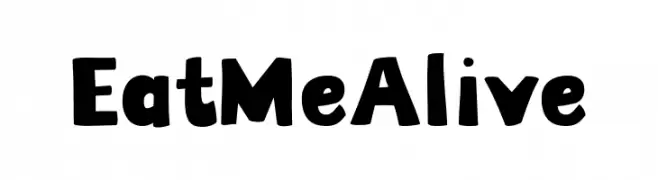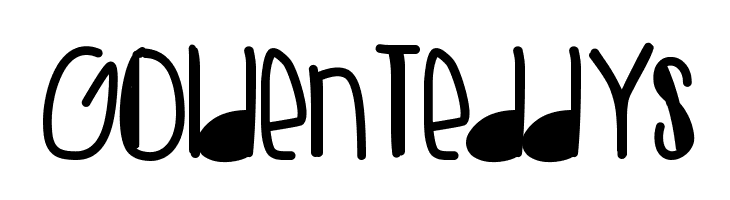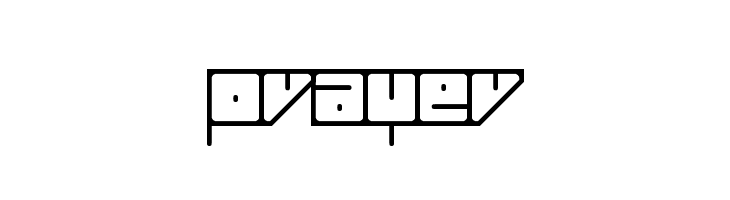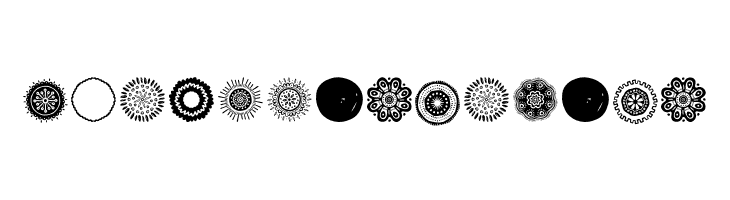
( Fonts by Des Gomez )
A playful, hand-drawn font with bold, rounded characters and whimsical symbols.
( گالری فانت فارسی پژوهش آريانا - only compatible with Farsi and Arabic )
A bold, modern font with uniform stroke width and strong presence.
( Fonts by Blue Vinyl - Jess Latham - www.bvfonts.com )
Eclectic hand-drawn dingbat font with playful icons and symbols.
A playful and elegant script font with flowing, cursive letterforms.
A bold, brush-style script font with a playful and dynamic character.
( Fonts by Paul Lloyd )
An elegant, condensed script font with ornate uppercase letters.
( Lanark - Kurt Tesnau - strangegeometry.com )
An ornate Gothic font with intricate details and decorative flourishes.
( Fonts by Des Gomez )